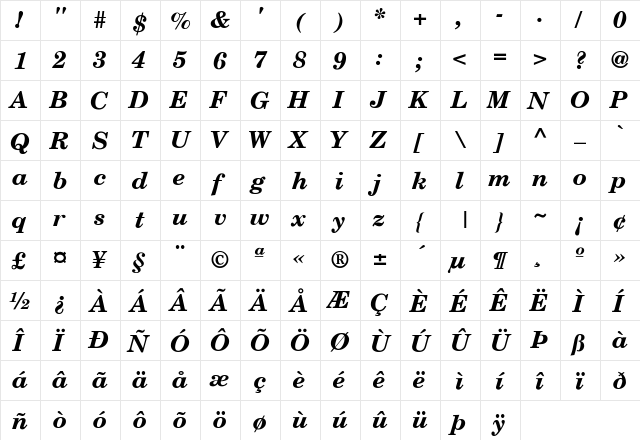
NewCenturySchlbk-BoldItalic Regular
NewCenturySchlbk-BoldItalic is a composed and adaptable typeface that performs quietly and consistently across a wide range of design contexts. The dynamic lean of this cut emphasises speed and emphasis in any layout. The heavy weight commands attention and anchors typographic hierarchies.
Pro Tip: Try NewCenturySchlbk-BoldItalic for annotation and caption copy alongside an upright companion — the contrast in angle creates a dynamic but ordered typographic system.